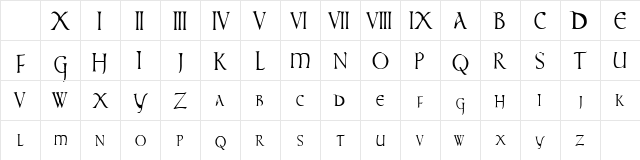
Complete times new vespasian Regular glyph index. Displaying only characters natively supported by times new vespasian Regular font.
times new vespasian is a composed and adaptable typeface that performs quietly and consistently across a wide range of design contexts.